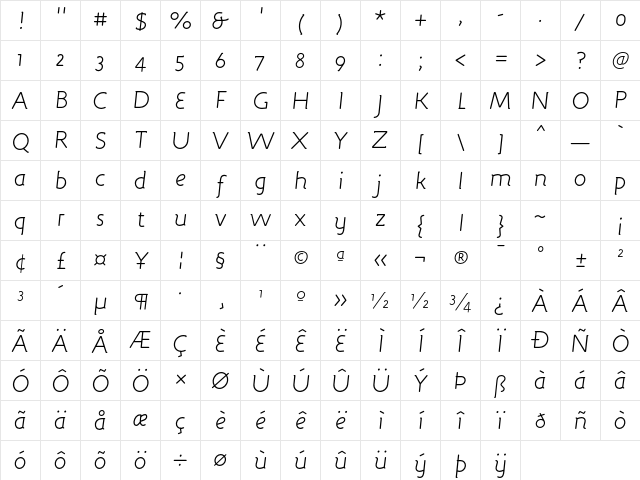
Engine LightItalic
Design Context for Engine
Engine is a composed and adaptable typeface that performs quietly and consistently across a wide range of design contexts. The slanted form adds forward momentum and visual energy. Its slender proportions lend an understated elegance to any composition.
Pro Tip: Use Engine for emphasis, pull quotes, and subheadings where its slanted energy can add rhythm to the layout.